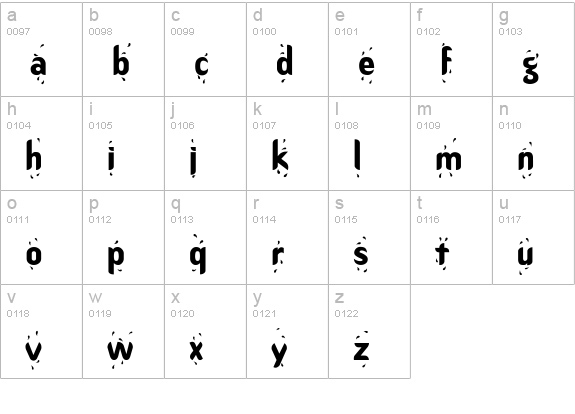
The Liquid font exudes a sense of fluidity and modernity with its sleek design and smooth curves. This contemporary typeface is perfect for adding a touch of sophistication to various design projects, from branding to web design. Its versatility allows it to be used in a wide range of applications, making it a go-to choice for designers looking for a clean and stylish look. What sets Liquid font apart is not just its elegant appearance, but also the fact that it is available for free download at FontsMarket.com. This makes it easily accessible to anyone looking to elevate their design work without breaking the bank. Whether you're a seasoned designer or just starting out, Liquid font offers a professional and polished look that is sure to impress. Download it today and see how it can enhance your creative projects!